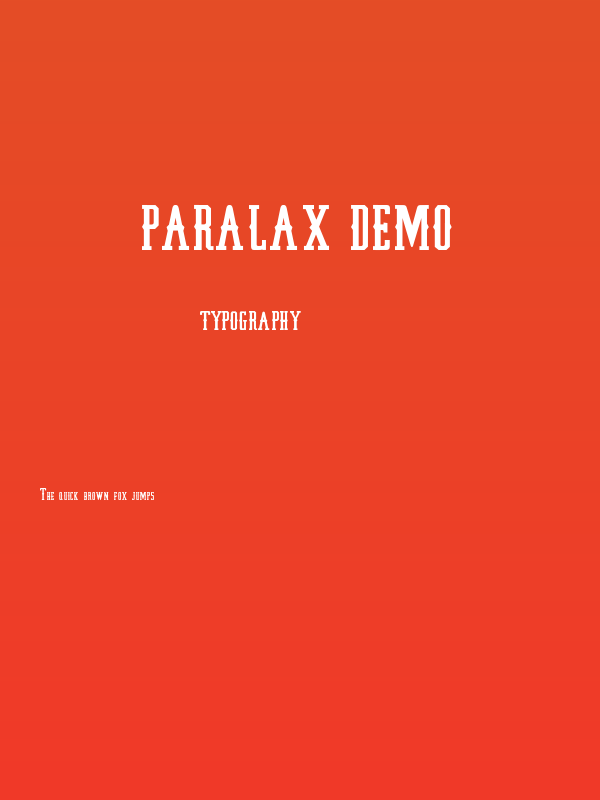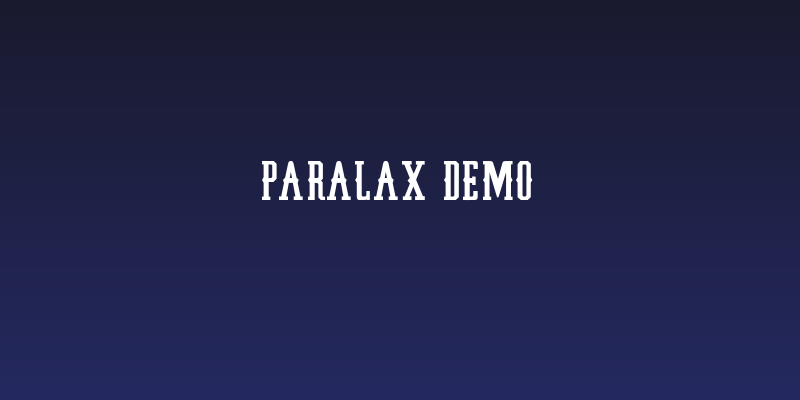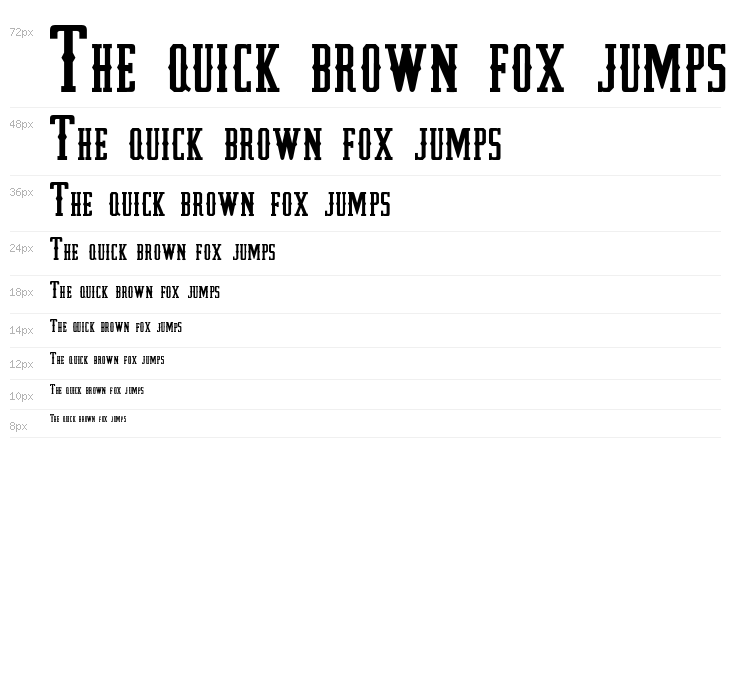
Paralax-demo Font
Paralax-demo Description
This font features a bold and striking design with strong, angular serifs that give it a commanding presence. The uppercase letters are tall and narrow, with a distinct vintage flair reminiscent of old western or circus posters. The lowercase letters maintain this boldness, ensuring consistency across all text. The numbers are equally bold, with a uniform height that matches the uppercase letters, providing a cohesive look. Special characters are designed with the same attention to detail, making them stand out while maintaining harmony with the rest of the font. This font's unique style is perfect for making a statement, whether in headlines, posters, or branding materials.
| Proposed Projects | Ideal for vintage-themed posters, branding, logos, and headlines that require a bold statement. |